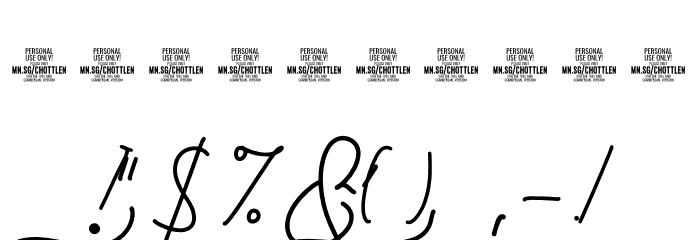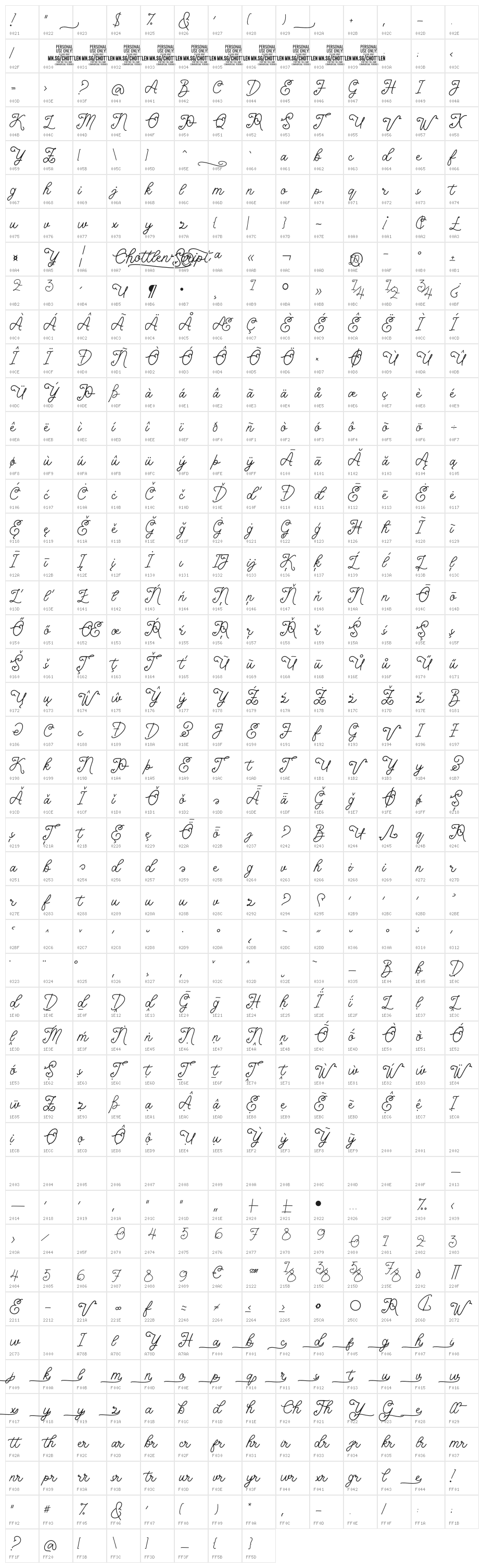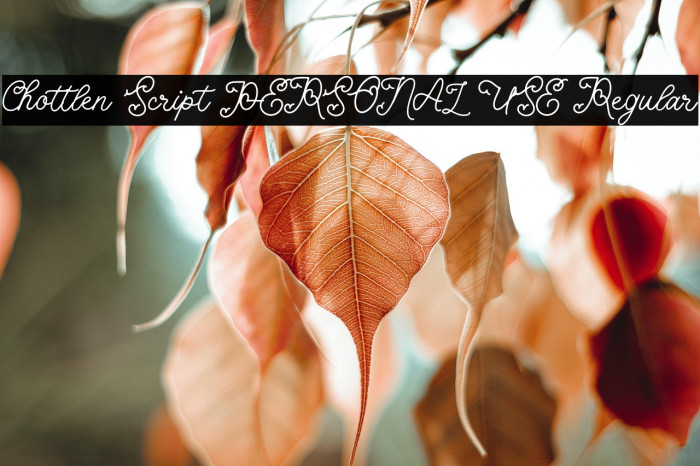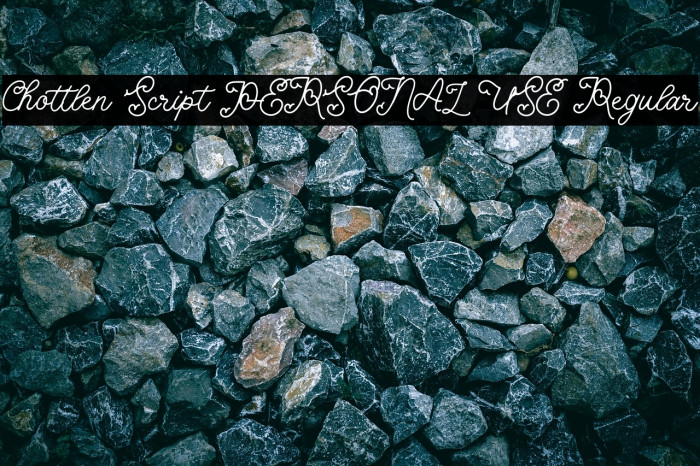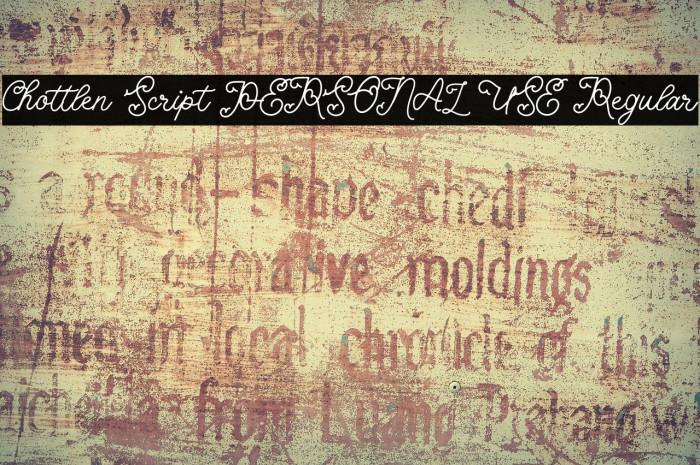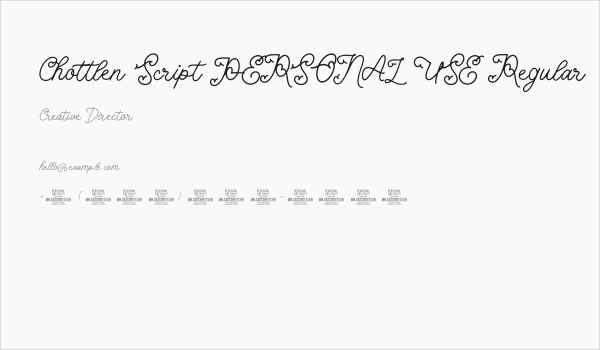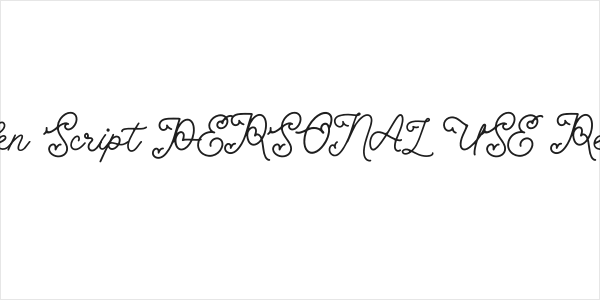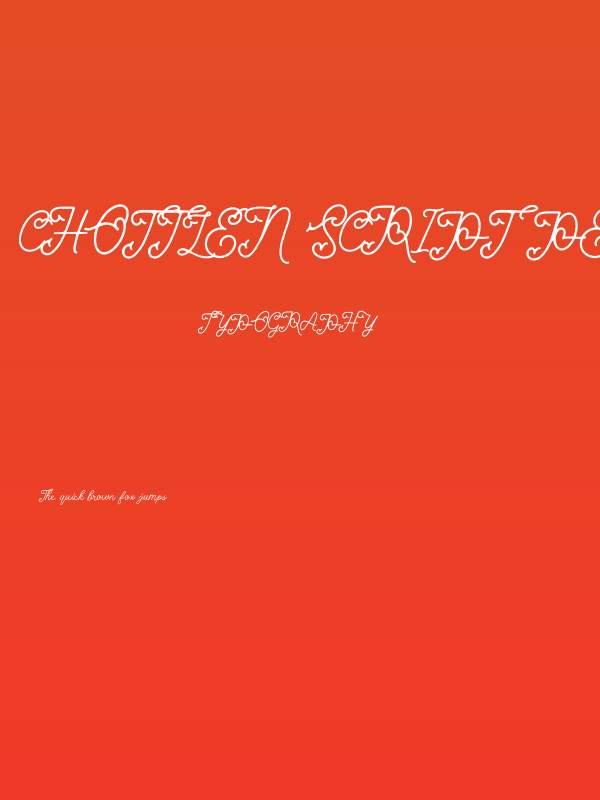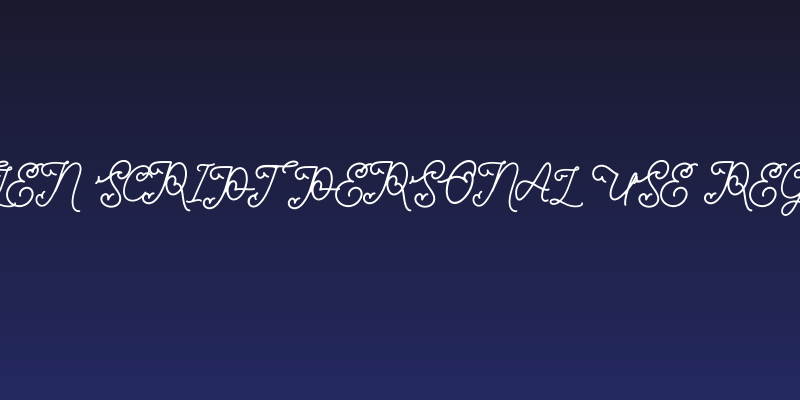
Chottlen Script PERSONAL USE Regular Font
Chottlen Script PERSONAL USE Regular Description
This script font features elegant, flowing characters with a handwritten style, combining both uppercase and lowercase letters in a seamless manner. The uppercase letters are ornate, with intricate loops and swirls, while the lowercase letters maintain a more straightforward, yet still cursive appearance. The font includes numerals and a variety of special characters, each designed to complement the overall aesthetic. The strokes are consistent in width, providing a harmonious look across all characters. This font is ideal for projects that require a personal, artistic touch.
| Proposed Projects | Ideal for wedding invitations, greeting cards, personal branding, and artistic projects. |